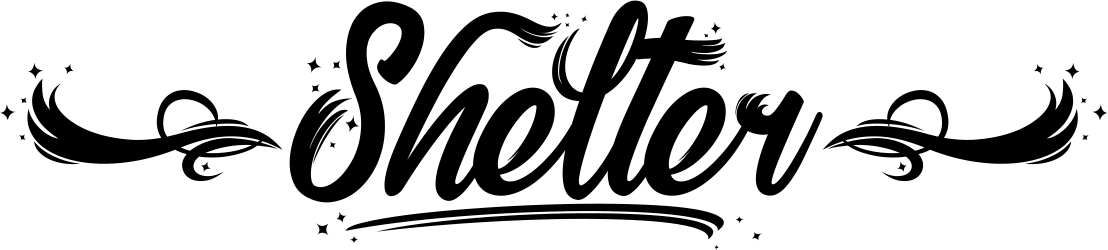
Shelter Font
Shelter is a beautiful script brush font that is great for everything from invitations to certificates. Regardless of the lack of numbers, it has a feminine and sophisticated tone that will ensure your project stands out…
Shelter is a beautiful script brush font that is great for everything from invitations to certificates. Regardless of the lack of numbers, it has a feminine and sophisticated tone that will ensure your project stands out. Additionally, this artistic font is perfect for overlaying movies and love poems. To get other fonts similar to this one, just browse our virtual library.